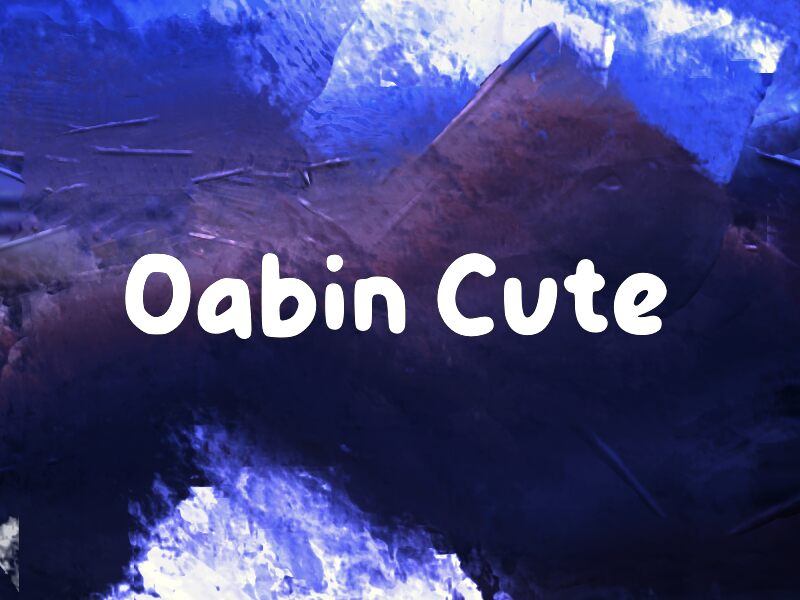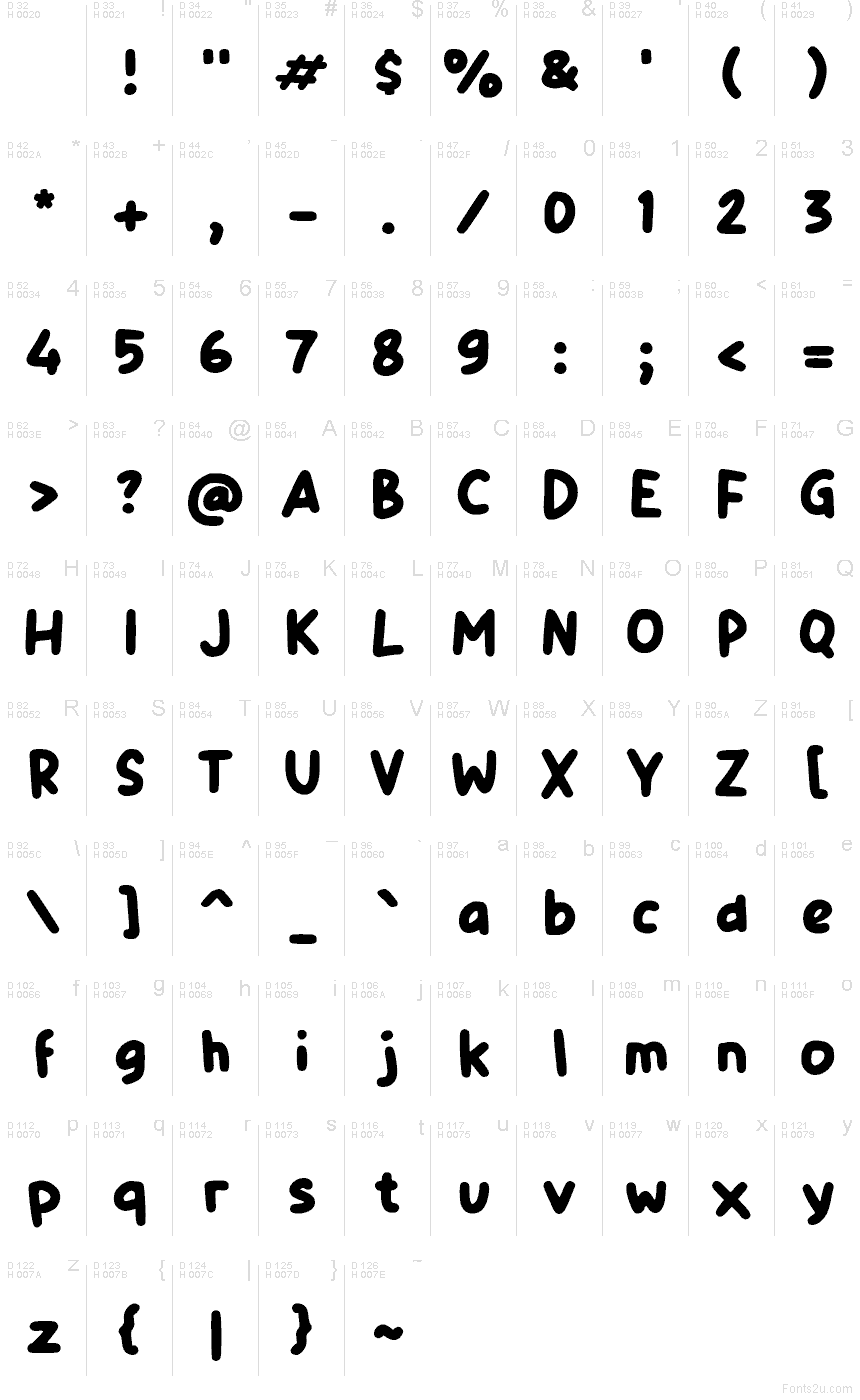
Oabin Cute
Oabin Cute font by wep is a free cartoon display typeface that looks like it’s been drawn with a chunky marker and a steady, friendly hand. The letters are bold, rounded, and slightly wobbly in all the right ways, giving your text a soft, huggable feel rather than a slick digital polish. Its thick strokes and cozy curves stay legible even at smaller sizes, while still feeling bubbly and fun when blown up big.
Using Oabin Cute, this free font shines on kids’ book covers, birthday invitations, stickers, classroom posters, toy packaging, and playful logos or YouTube thumbnails. The gentle, pillowy forms instantly signal “fun and friendly,” making it a natural fit for any child-focused brand or lighthearted project. For an easy pairing, use Oabin Cute for headlines and combine it with a simple, clean sans serif for supporting text.